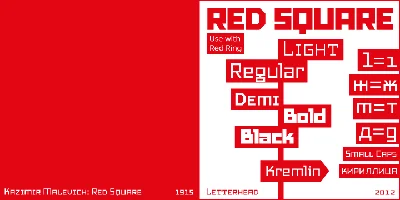
Red Square Font
Red Square Font is perfect for bold advertising campaigns, urban streetwear branding, impactful headline design, powerful logo creation, dynamic poster layouts, strong packaging design, attention-grabbing signage, modern architectural graphics, edgy fashion labels, and commanding digital displays.
What makes Red Square Font exciting is its commanding presence and geometric strength that creates instant visual impact with its bold, square-based letterforms. This powerful typeface features strong angular construction with clean lines and solid weight distribution that demands attention and conveys authority. The font's architectural precision and bold character make it perfect for brands and projects that need to project confidence, strength, and modern sophistication in competitive markets.
The Red Square Font family includes impactful variations: Regular, Bold, Light, Condensed, Extended, and Outline versions. Each style maintains the core geometric aesthetic while providing different levels of visual weight and presence. The complete family offers designers comprehensive tools for creating striking, memorable visual communications that stand out in today's crowded media landscape.